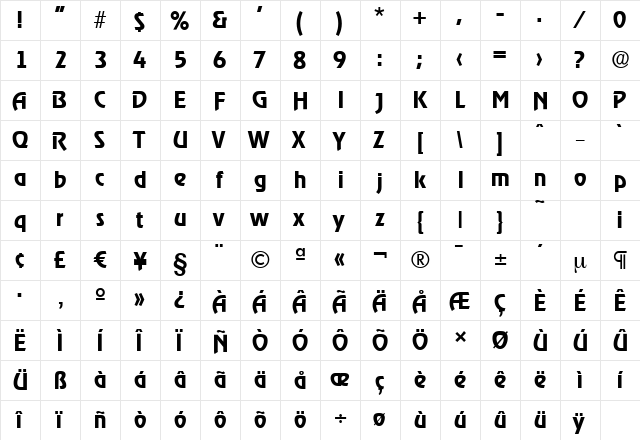
OnStageSerial Bold
Design Context for OnStageSerial Typeface
OnStageSerial offers clean, dependable letterforms without strong stylistic allegiance, making it a practical choice for designers who need flexibility. Its bold stroke weight gives it real presence on the page.